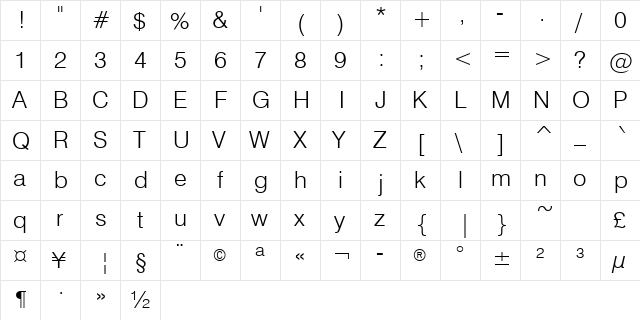
Swis721Greek Lt BT Light
Design Context for Swis721Greek Lt BT Typeface
Swis721Greek Lt BT takes a measured approach to typography — its balanced proportions and neutral character make it a reliable workhorse for both digital and print work. Its slender proportions lend an understated elegance to any composition.